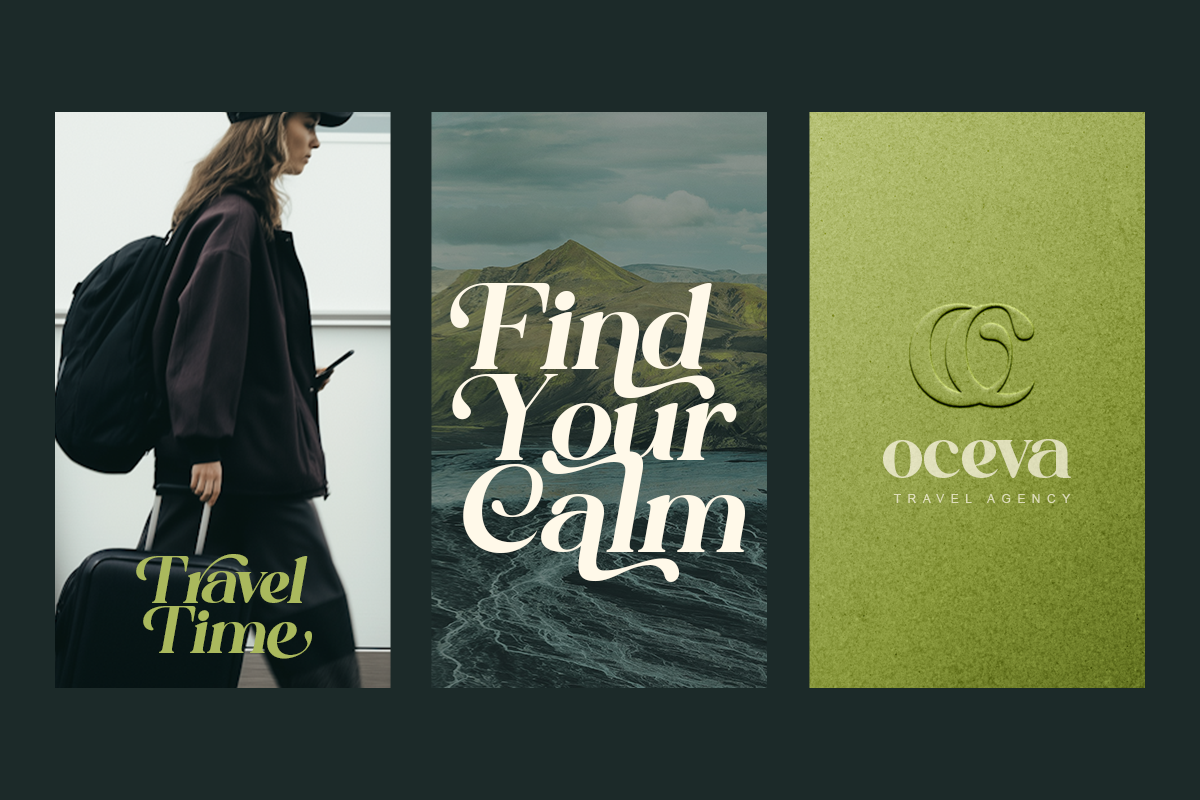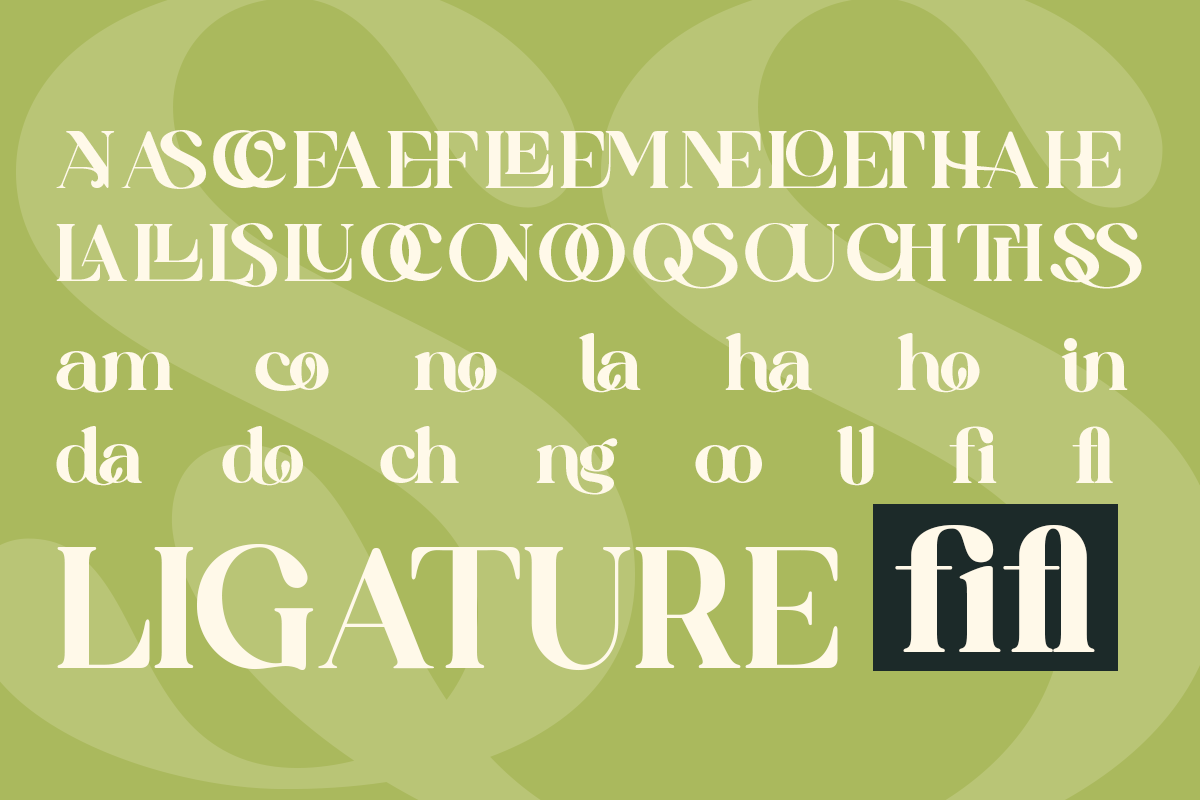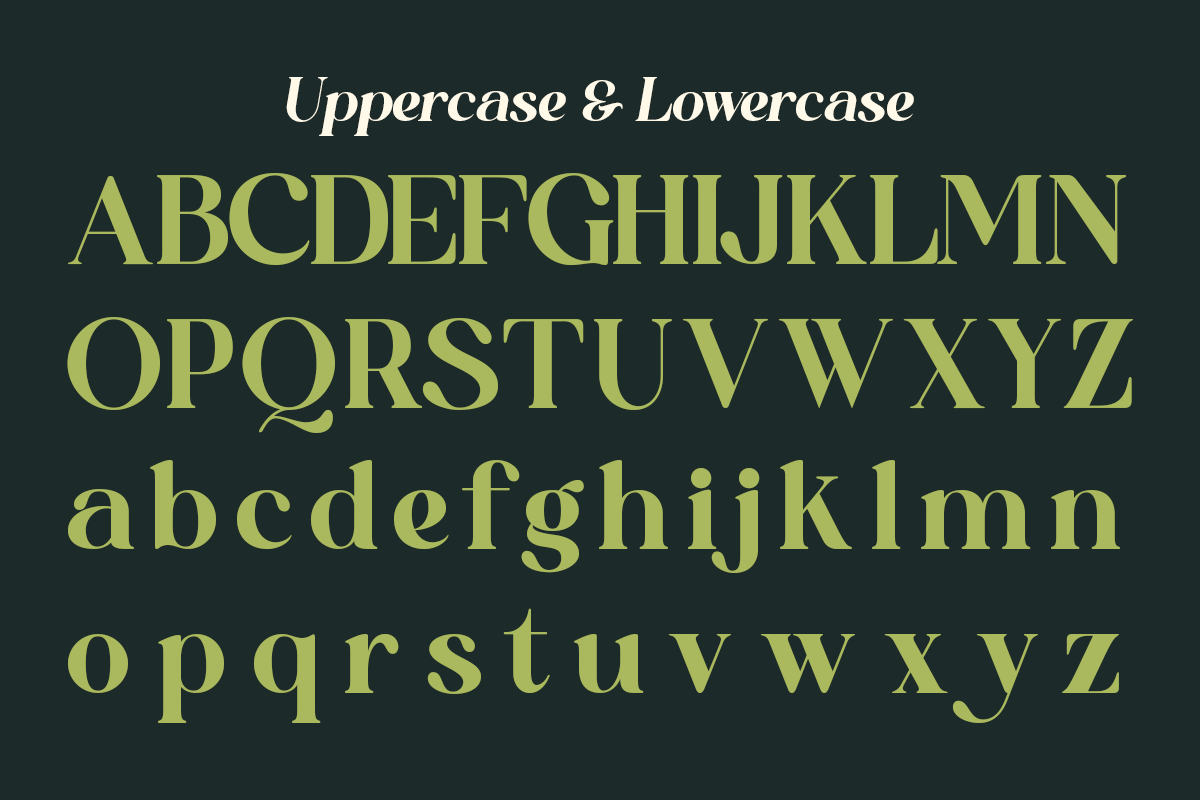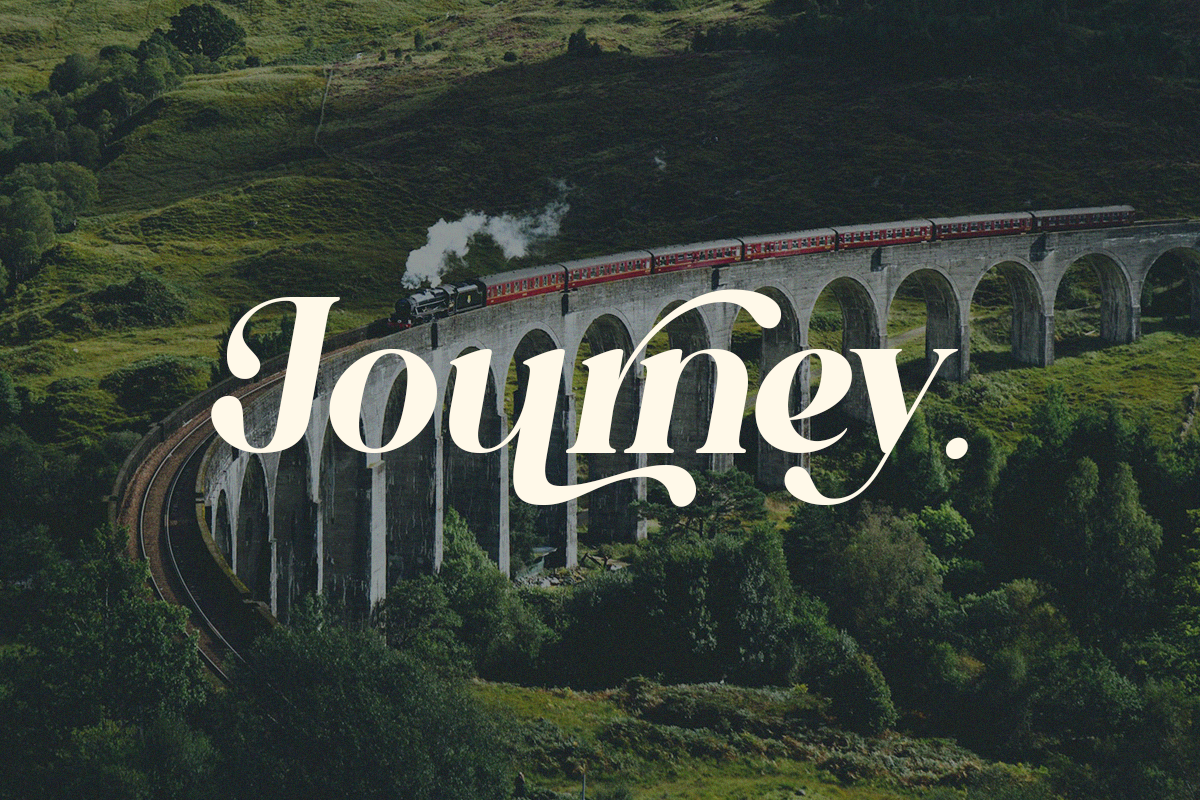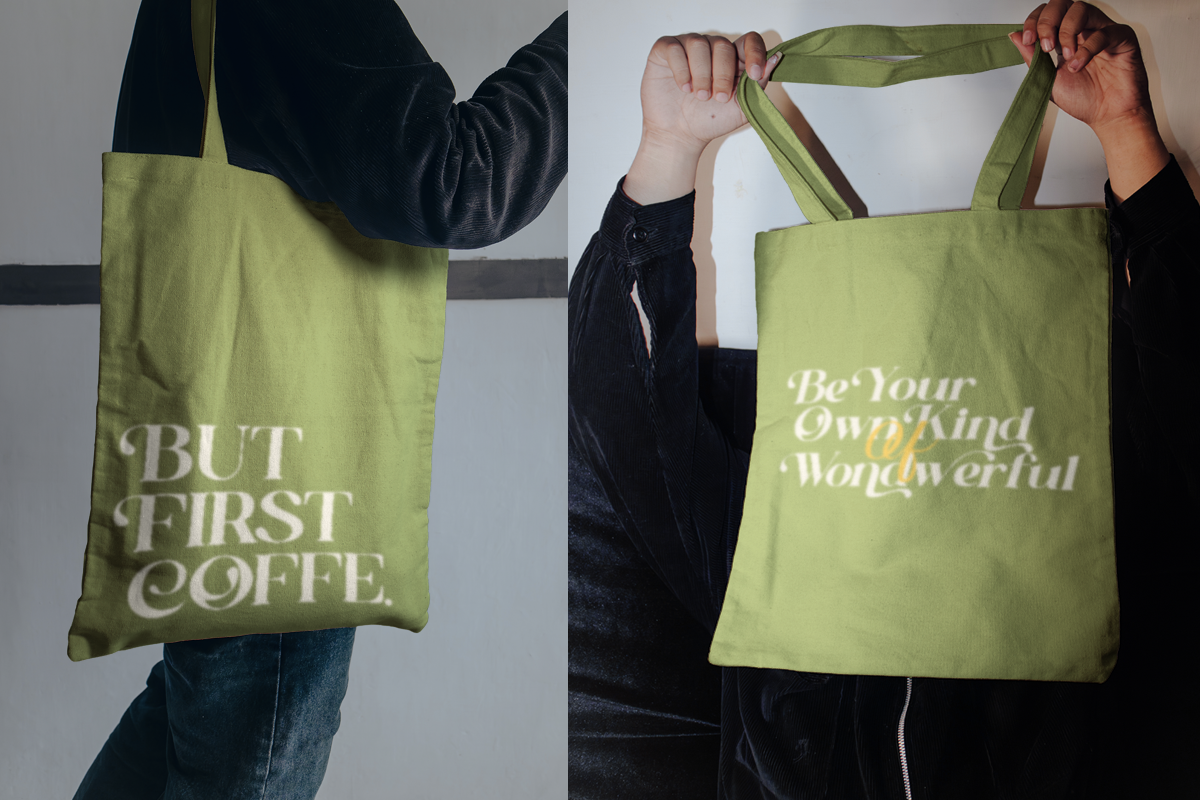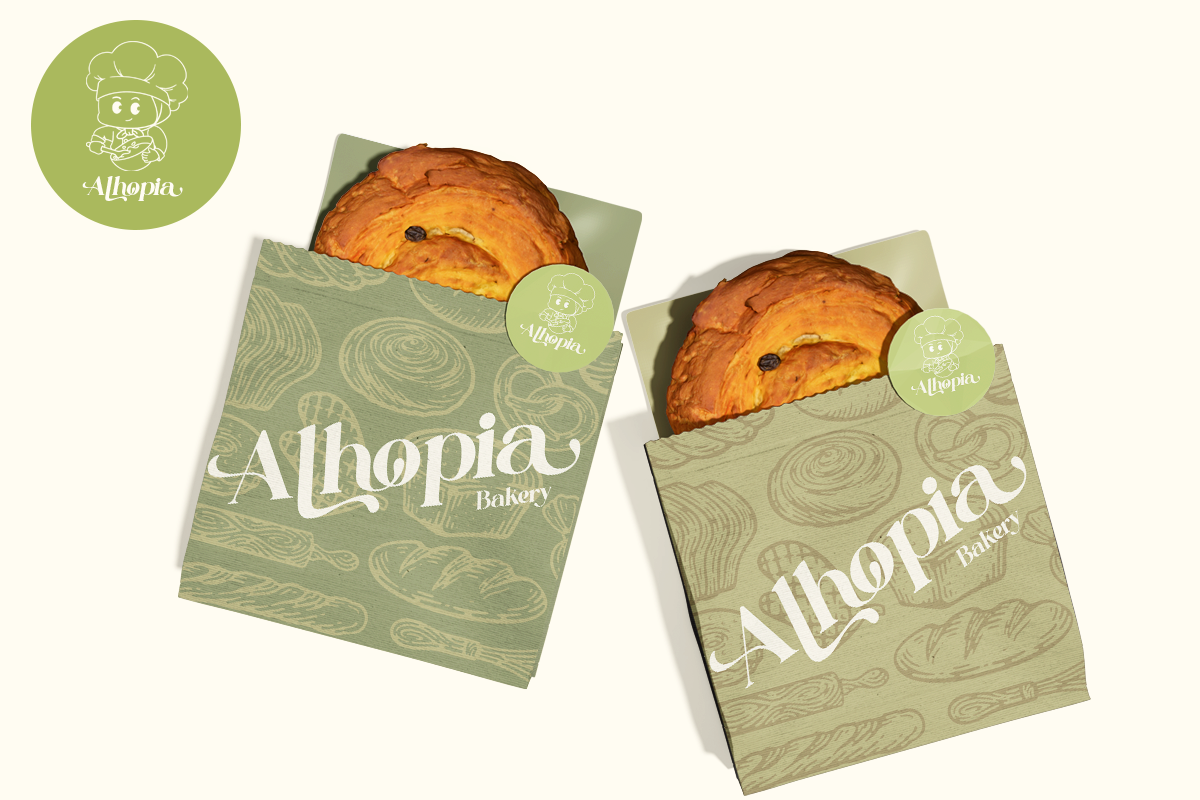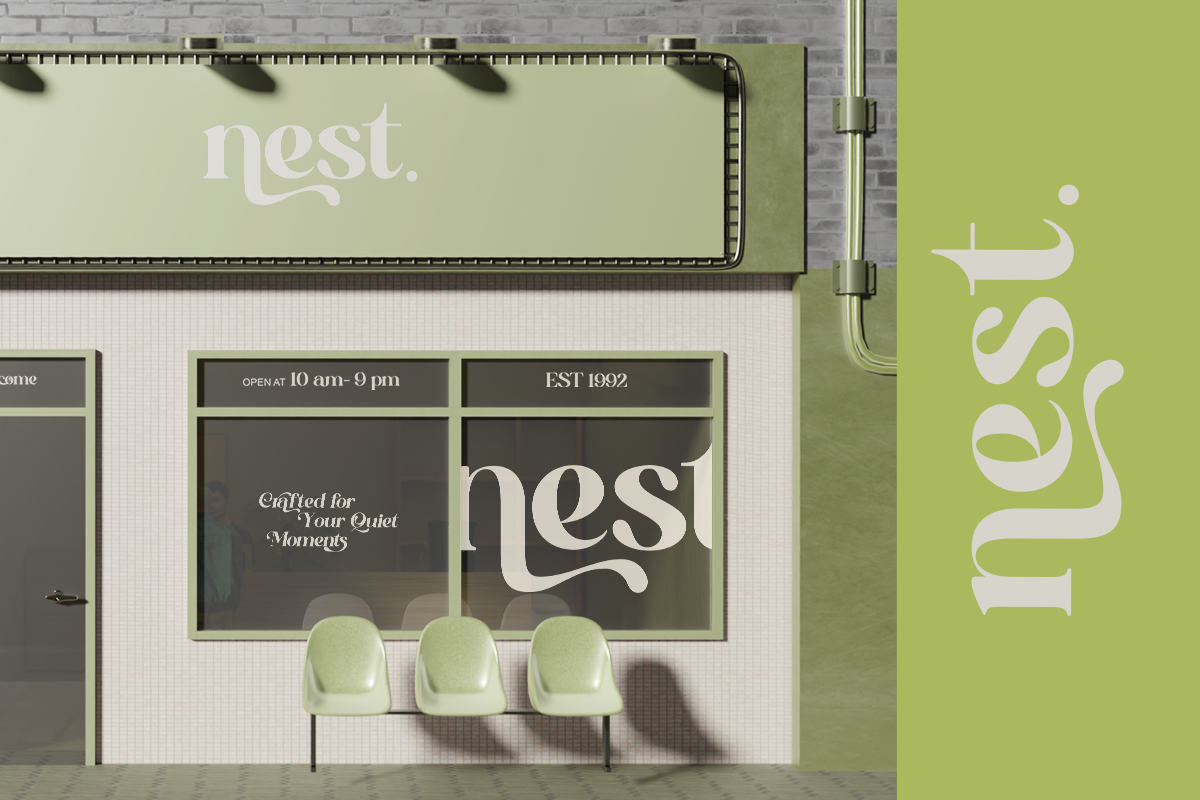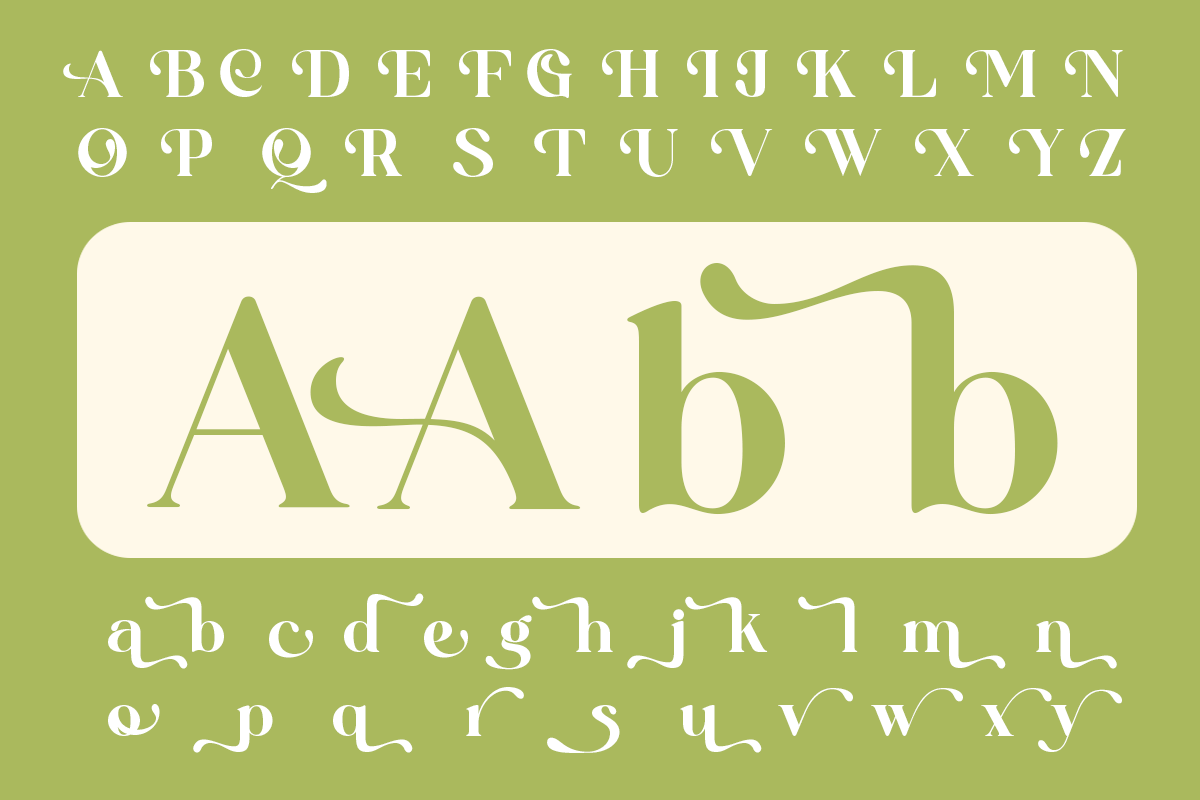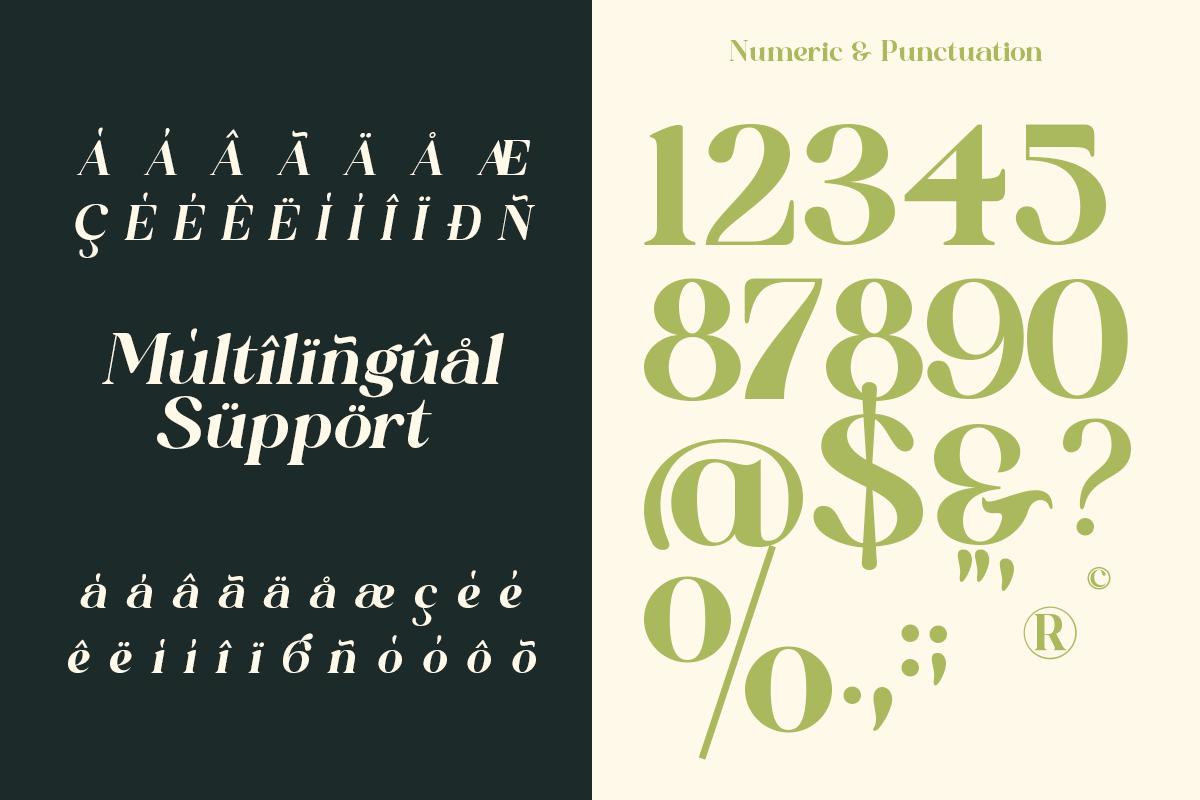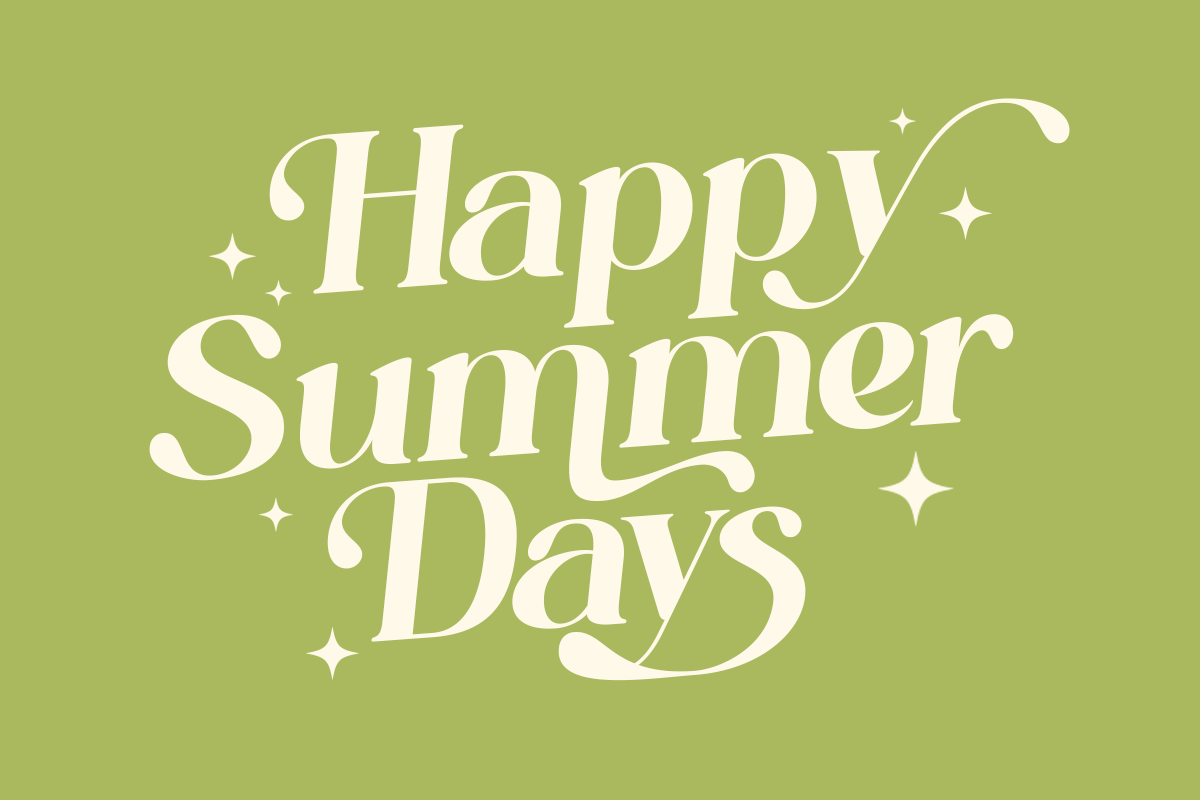
Qoncila - Modern Retro Swash Serif
Meet Qoncila, a bold modern swash serif crafted for designers who love strong presence and refined curves. Its expressive letterforms and dramatic terminals create an unforgettable typographic rhythm that stands out in logos, branding, and editorial layouts.
Qoncila balances boldness with elegance, making it ideal for fashion brands, luxury packaging, boutique identity systems, and magazine headlines.
Designed to bring cinematic sophistication into modern design.
- Regular & Italic
- Swash & stylistic alternates
- Ligature support
Fashion logos, luxury branding, magazine covers, boutique packaging, statement headlines, premium identity design.